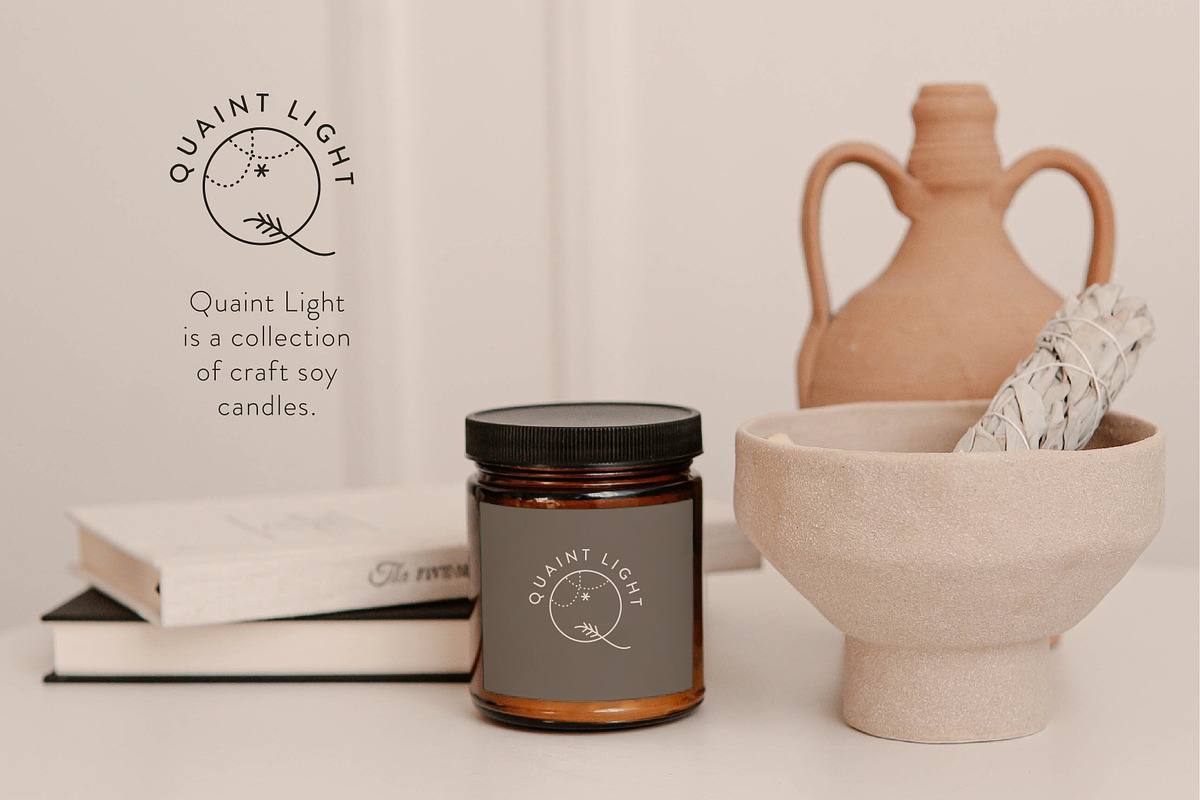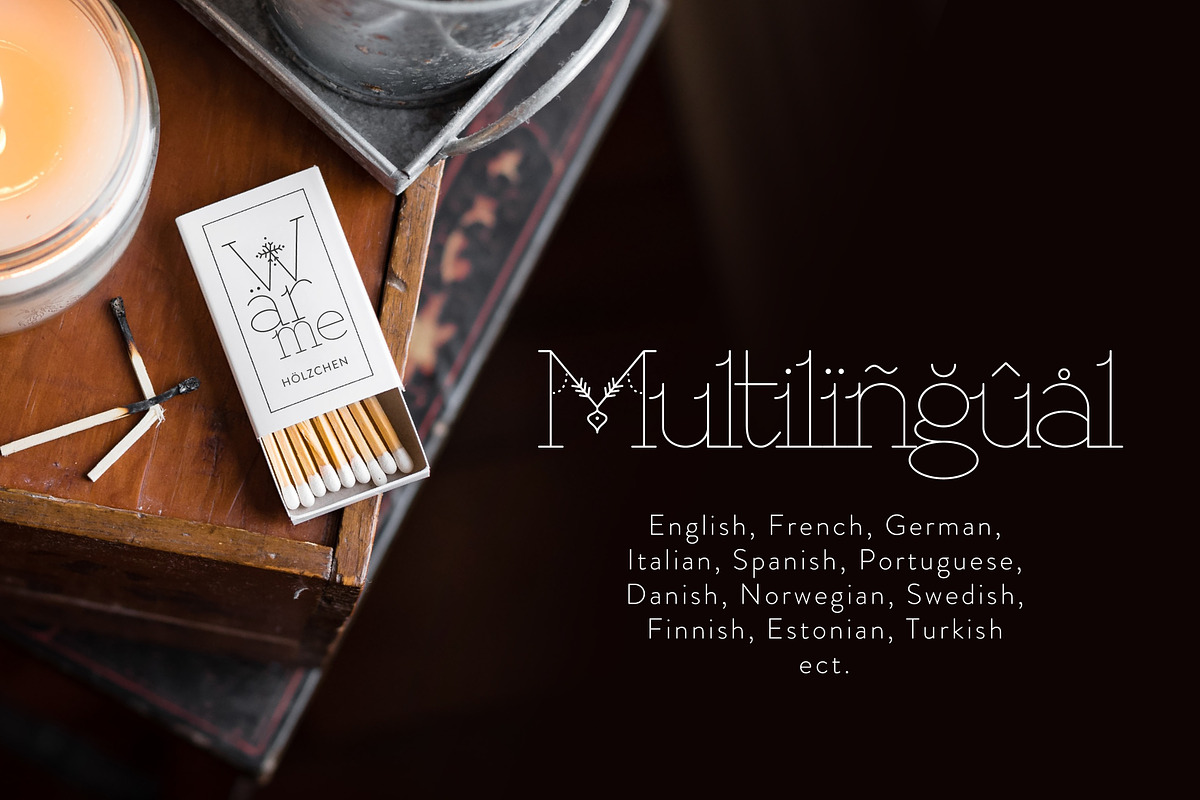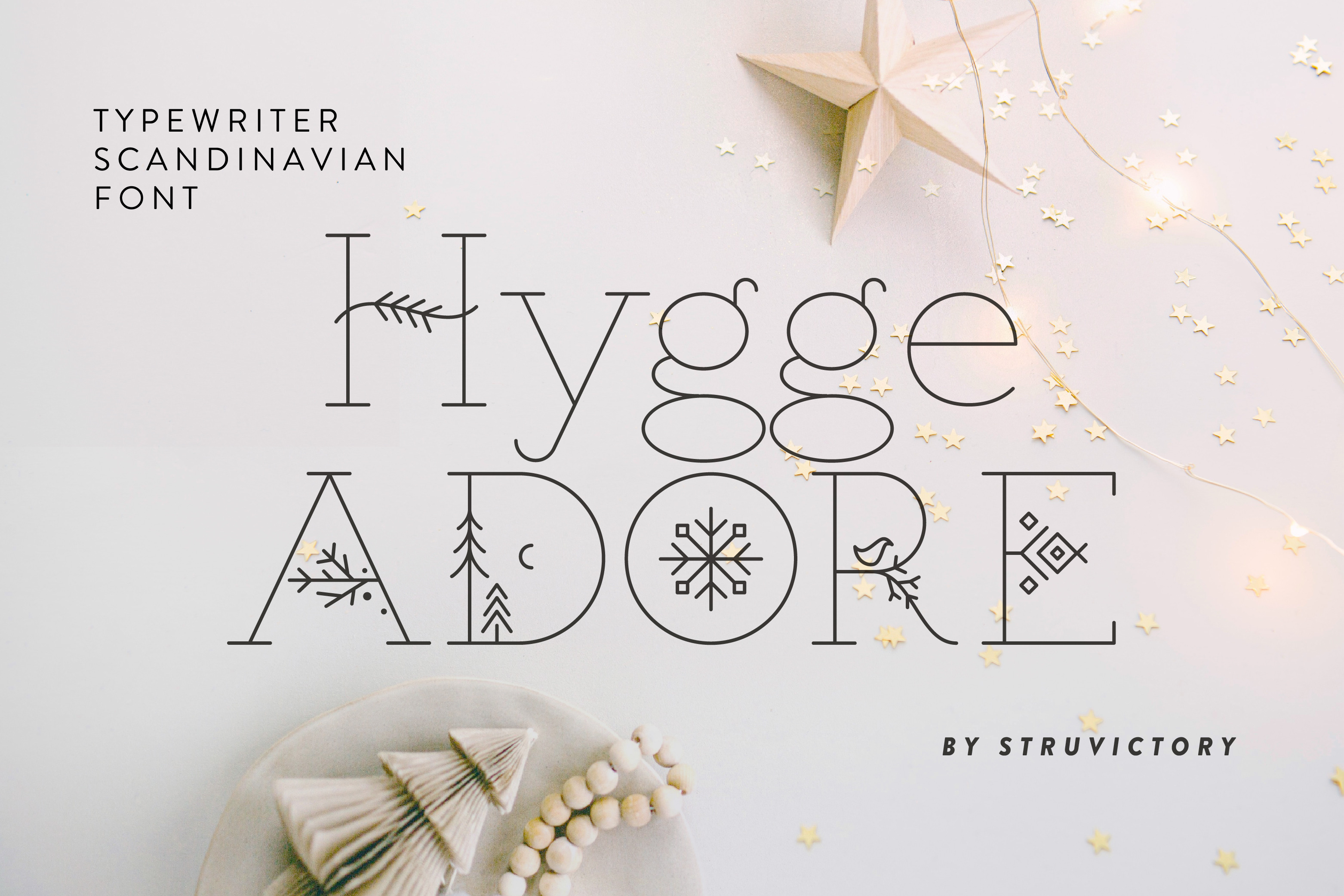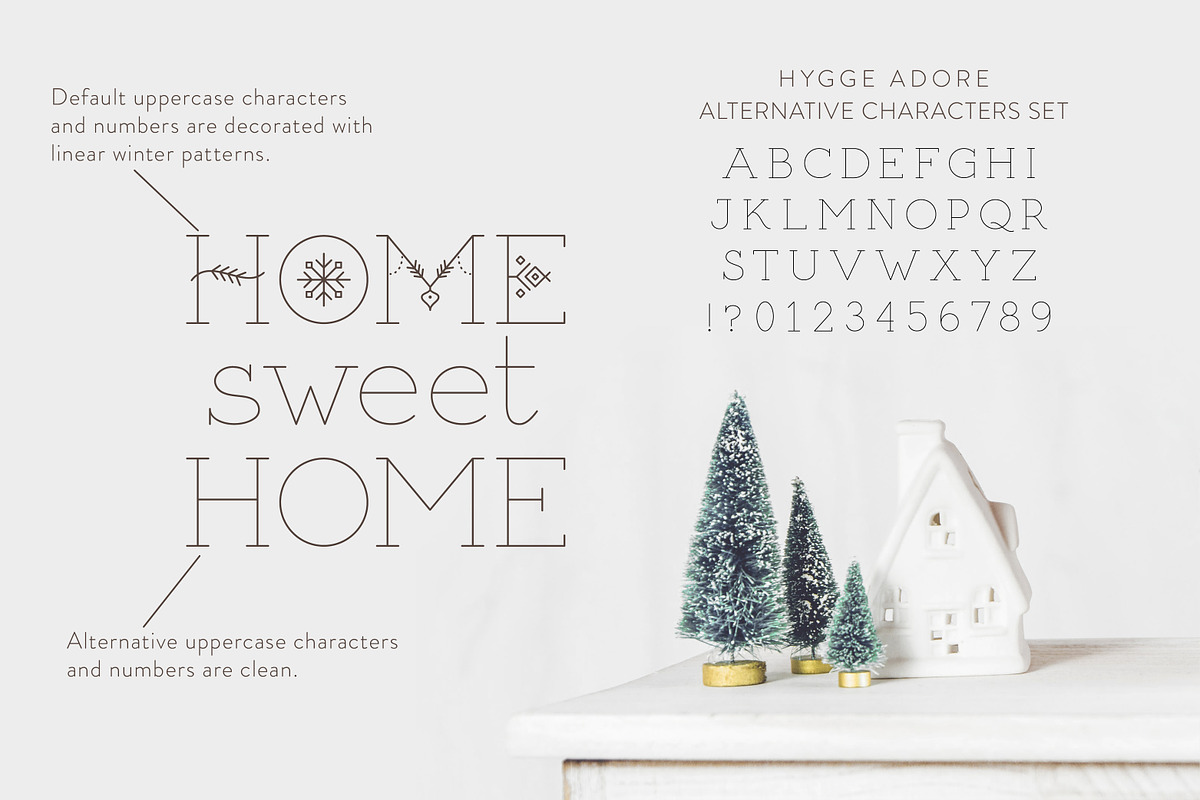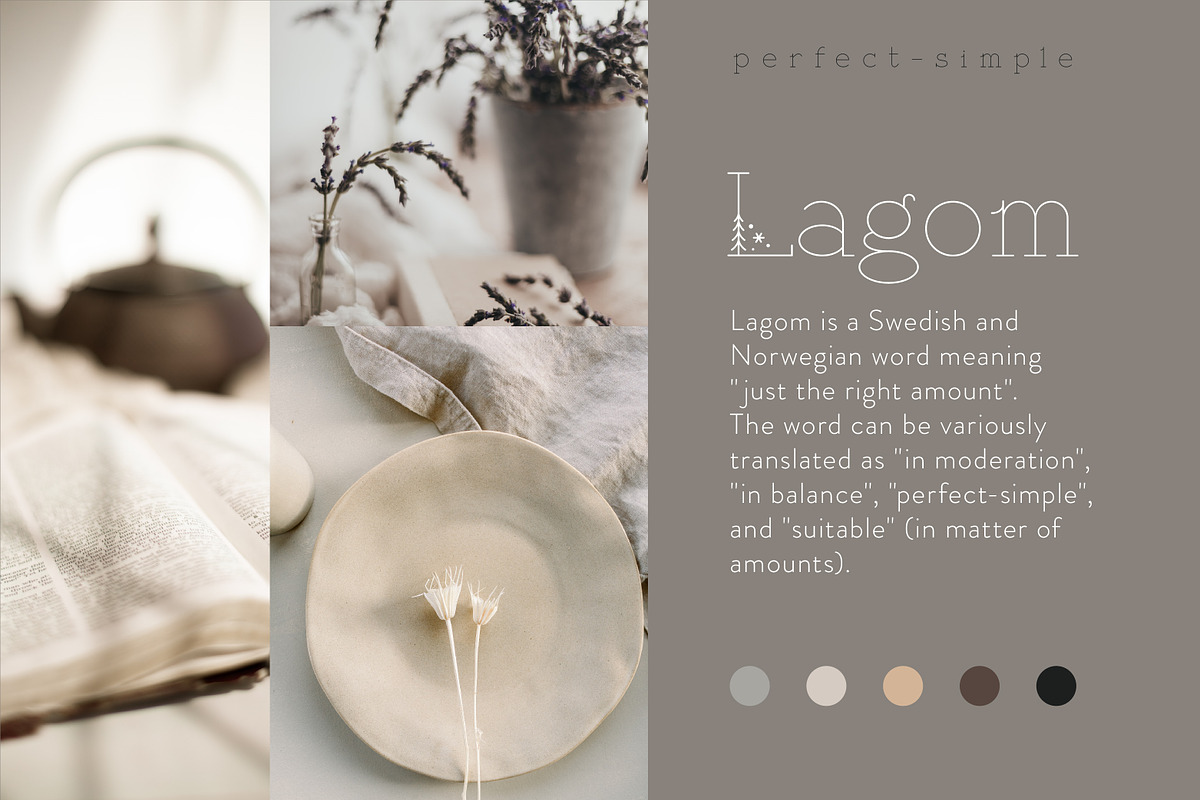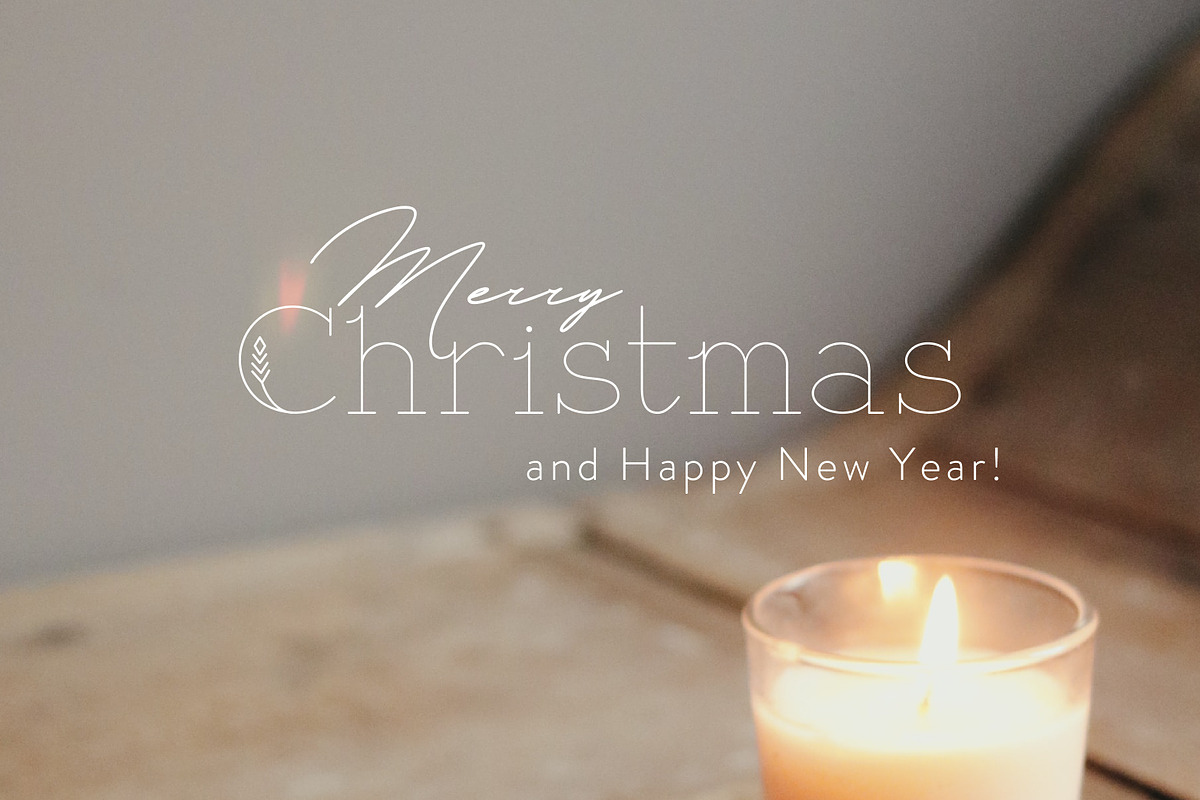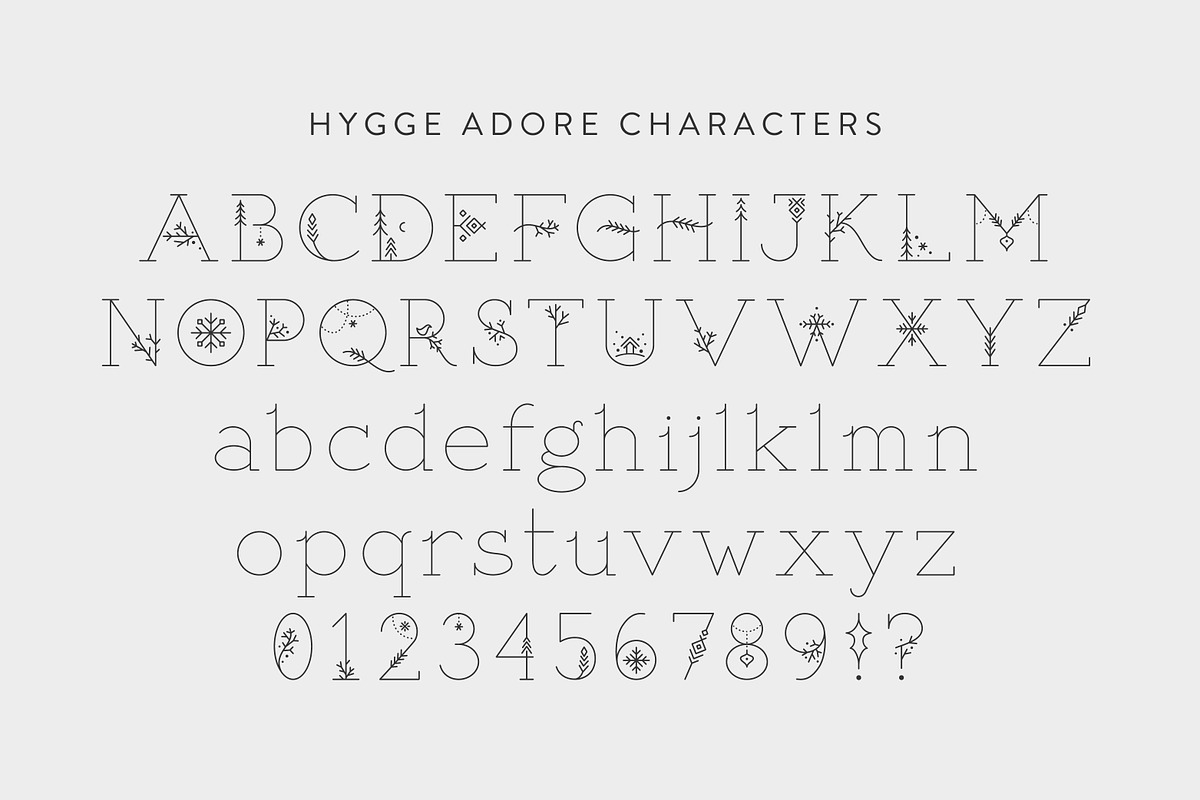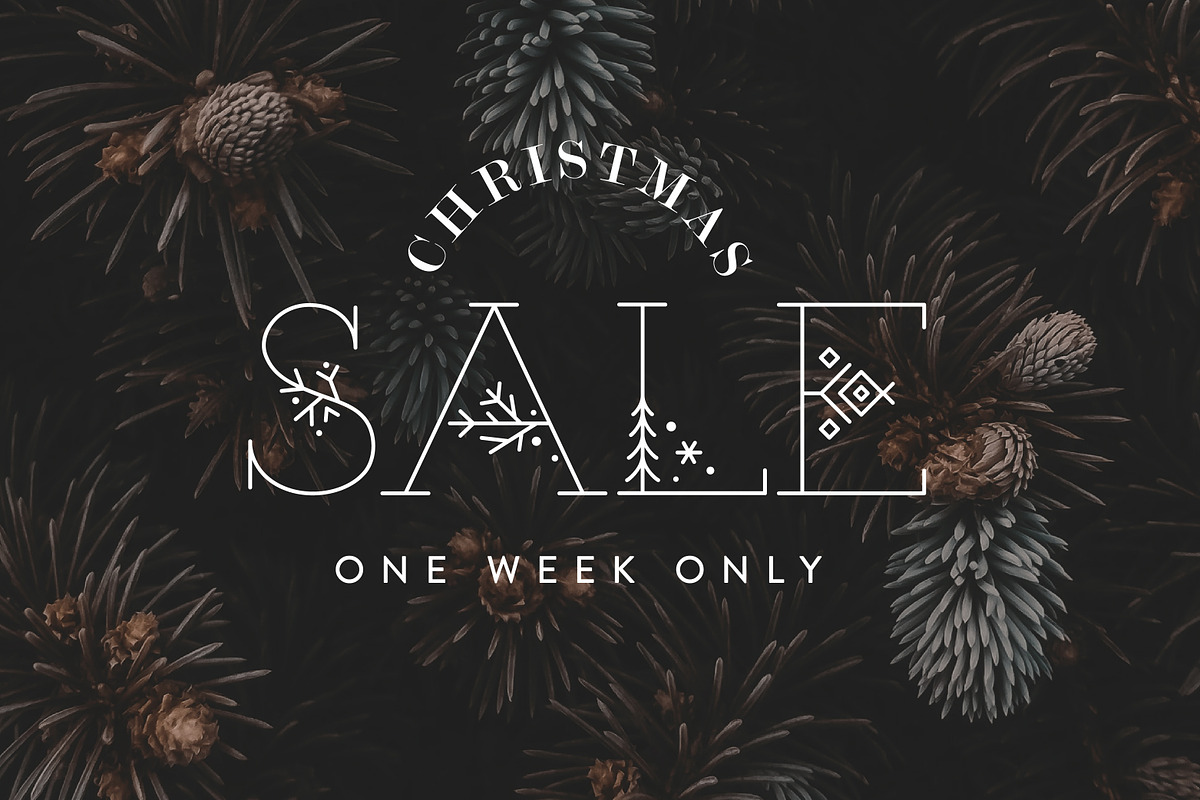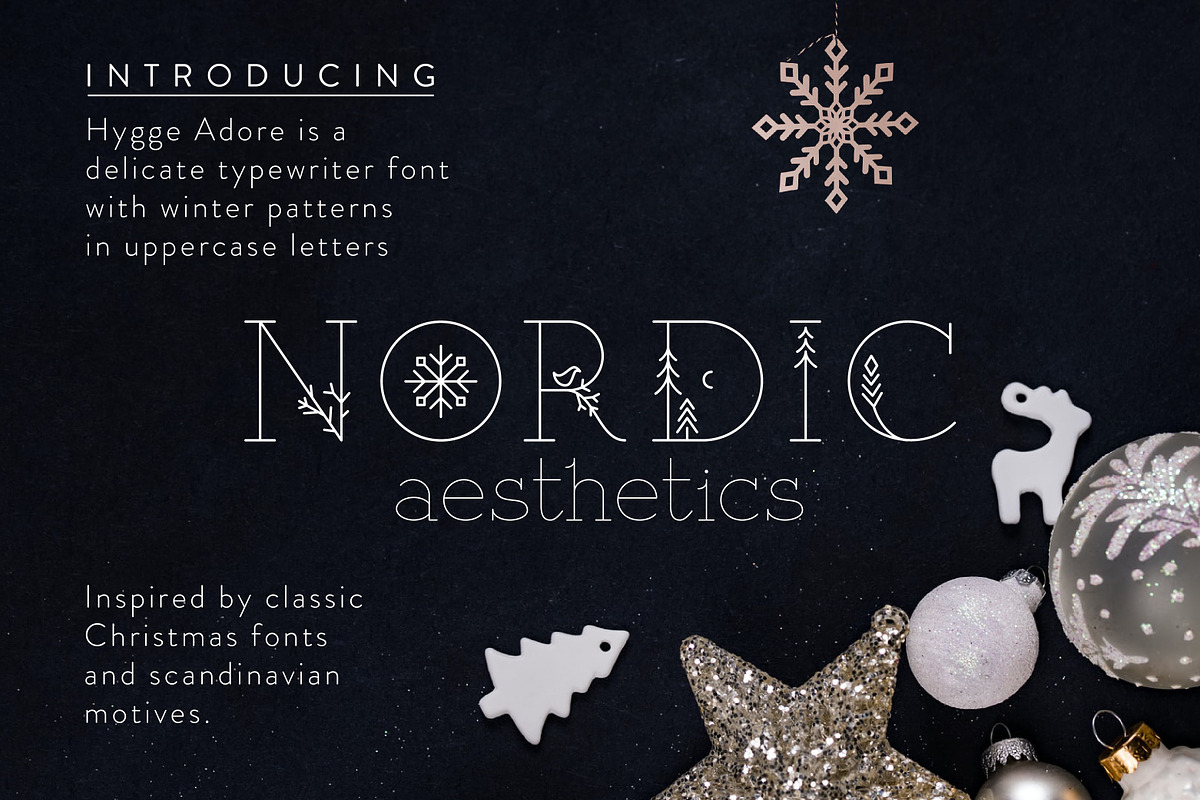
Hygge Adore - Christmas Serif Font
Hygge Adore is a delicate slab serif font with winter patterns in uppercase letters. Inspired by classic Christmas fonts and scandinavian motives.
Hygge Adore font is suitable for craft products branding and packaging (handmade candles, soap, tea, coffee, ect.), Christmas and hygge design. Use individual letters and symbols to create logos and monograms.
Hygge Adore includes stylistic alternates for all uppercase symbols and numbers. Alternative glyphs are without patterns.
The font has extensive language support, it includes English, French, German, Italian, Spanish, Portuguese, Danish, Norwegian, Swedish, Finnish, Estonian, Turkish. Need to know if your language is supported? Type any words in the text box below and see if all characters you need are there.